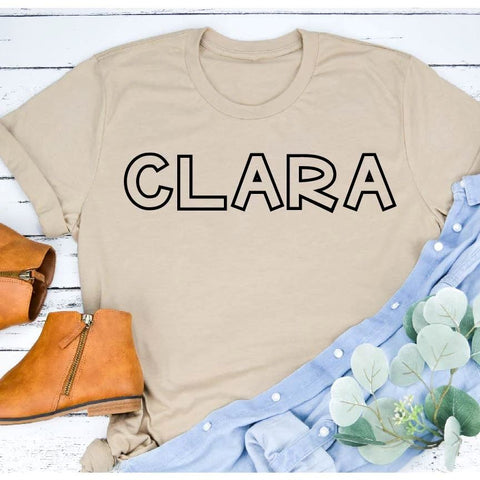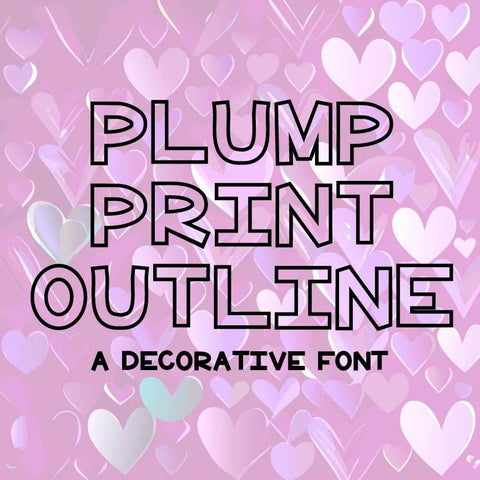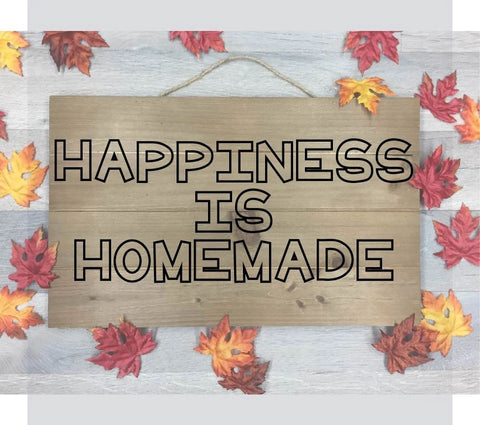
Plump Print Outline Font OTF, Fonts for Crafting, Handwritten Font
This font will be perfect for all your Craft projects! Use it to make custom shirts, keychains, valentines, tags, bags, and whatever else you can think of!